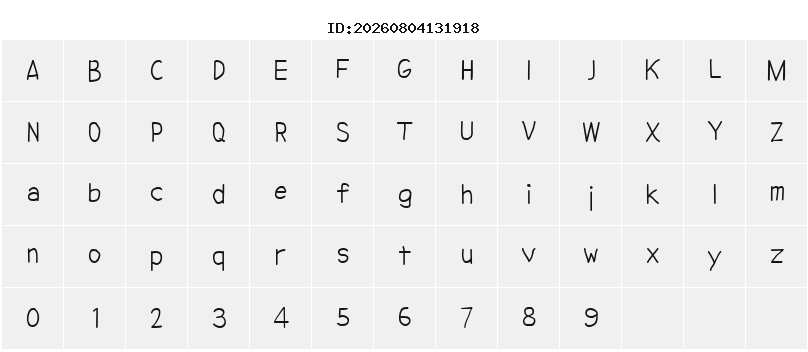
NipCen's Print Unicode Preview
• Font Name: NipCen's Print Unicode
• Full Font Name: NipCen's Print Unicode
• PostScript Name: NipCen's Print Unicode
• Manufacturer: Jayvee D. Enaguas
About NipCen's Print Unicode.ttf
NipCen's Print Unicode.ttf is a modern, elegant sans-serif font designed for ultimate readability and visual harmony. Perfect for branding, headlines, web design, and print materials.